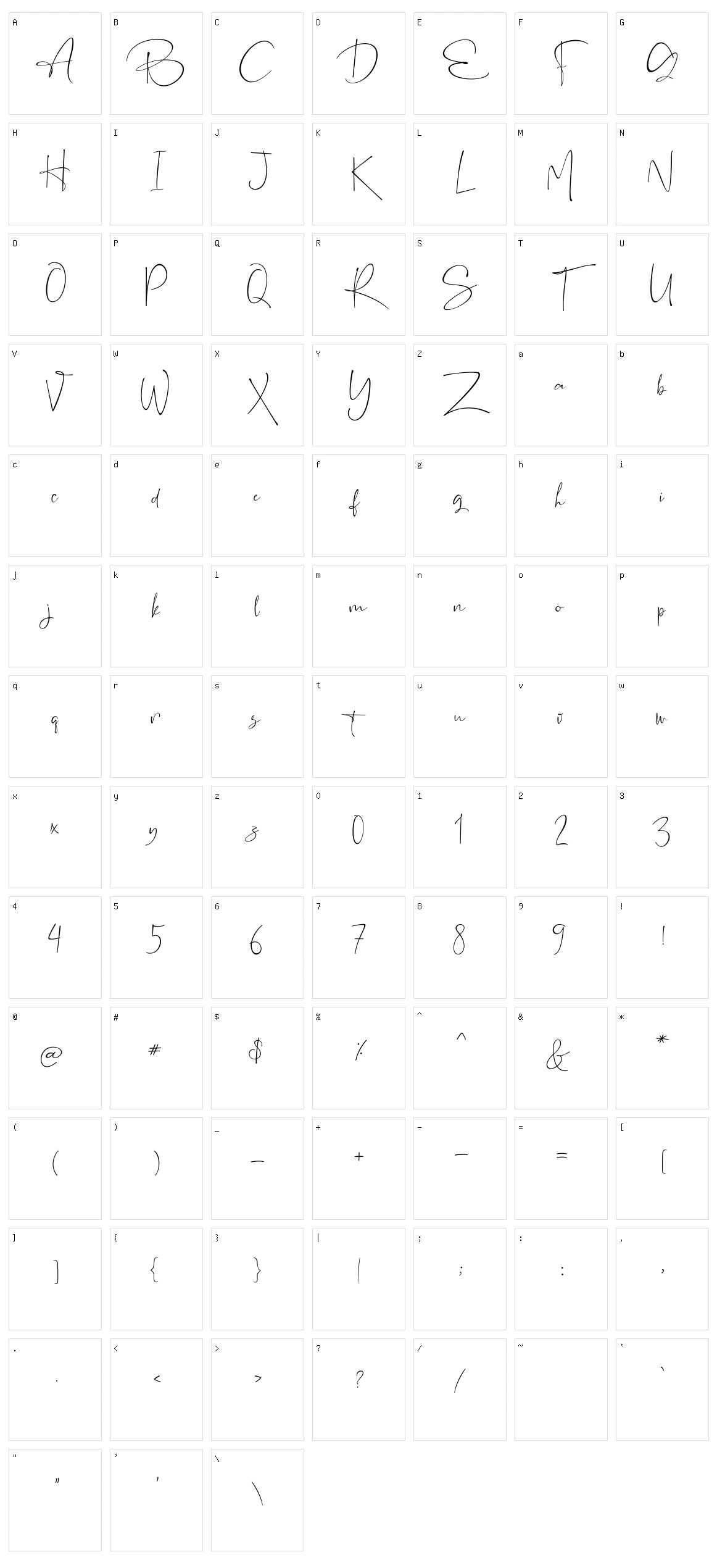
The free font The Rochester is carefully designed by Typeline Studio, showcasing a thoughtful balance of creativity and usability and falls under the Script font style. When you download the ZIP file, it contains only 21.83 KB of font files, making it lightweight and quick to download. Please review the license details below to understand permitted usage and distribution rights. If license information is not available, we recommend using this font for personal projects only or contacting the author directly for commercial usage permissions.